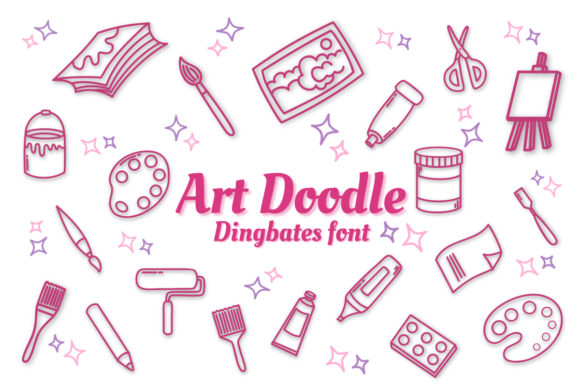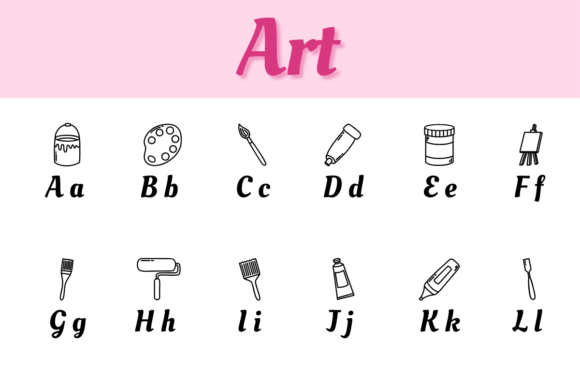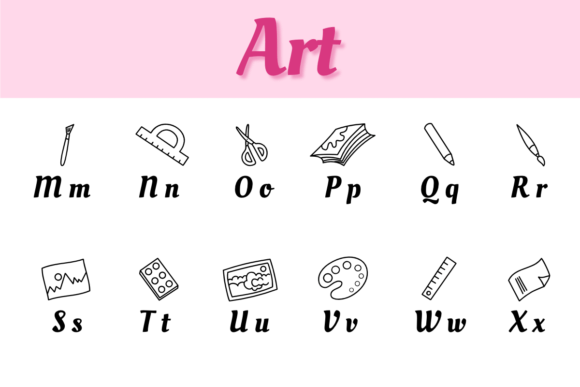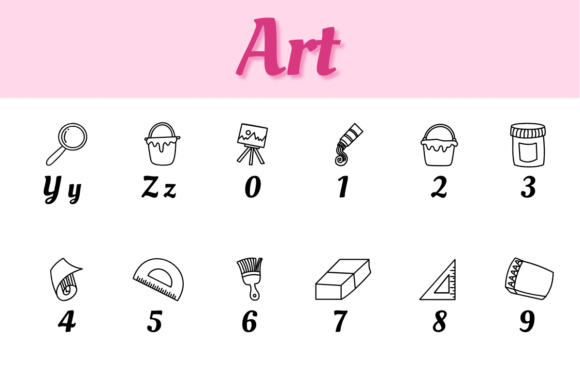
Art Doodle Font
About the Art Doodle Font
The wait is over! The incredible Art Doodle Font is now available for your design toolkit. Art Doodle is a fun and creative font that includes small pictures and drawings instead of regular letters and numbers. These little images, called dingbats, feature various art-related items like paintbrushes, palettes, and easels. It’s perfect for adding a playful and artistic touch to your projects!
Art Doodle Font shines in projects requiring a whimsical, hand-crafted feel. Ideal applications include children’s books, playful branding for art-related businesses, short headlines, and packaging for creative products. It’s less suitable for body text or UI elements due to its low readability in extended use.
Pairing Art Doodle with a clean sans-serif like Open Sans for body copy creates a balanced contrast, allowing the playful display font to stand out. Alternatively, a classic serif like Garamond offers a sophisticated counterpoint, highlighting Art Doodle’s unique charm.
The font’s overall personality is undeniably playful and expressive, conveying a sense of childlike wonder and artistic freedom. Avoid using it in contexts requiring seriousness or professionalism.
Art Doodle Font Usage Examples
Art Doodle Font Example